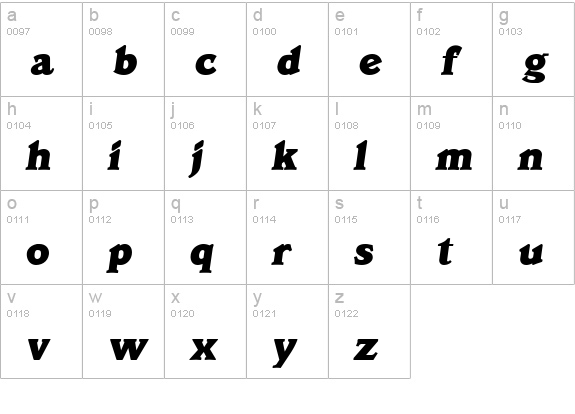
Decus SSi Italic Font Details
Decus SSi Italic is a distinctive, italic variant in the Decus typeface family \xE2\x80\x94 well suited to design and typography projects.
Decus SSi Italic font is a stylish and elegant typeface that exudes sophistication and charm. Its slanted design adds a touch of flair to any project, making it perfect for creating eye-catching titles, headings, and other text elements. The italicized characters of Decus SSi bring a sense of dynamism and movement to your designs, making them stand out with a touch of artistic flair. The Decus SSi Italic font is not only visually appealing but also highly versatile, suitable for a wide range of applications from branding to editorial design. Its modern yet timeless appeal makes it a great choice for both print and digital projects. Best of all, Decus SSi Italic font is available for free download at FontsMarket.com. This means you can easily access this beautiful typeface without any cost, allowing you to enhance your designs with a touch of sophistication and elegance. Download Decus SSi Italic font today and add a touch of style to your projects!